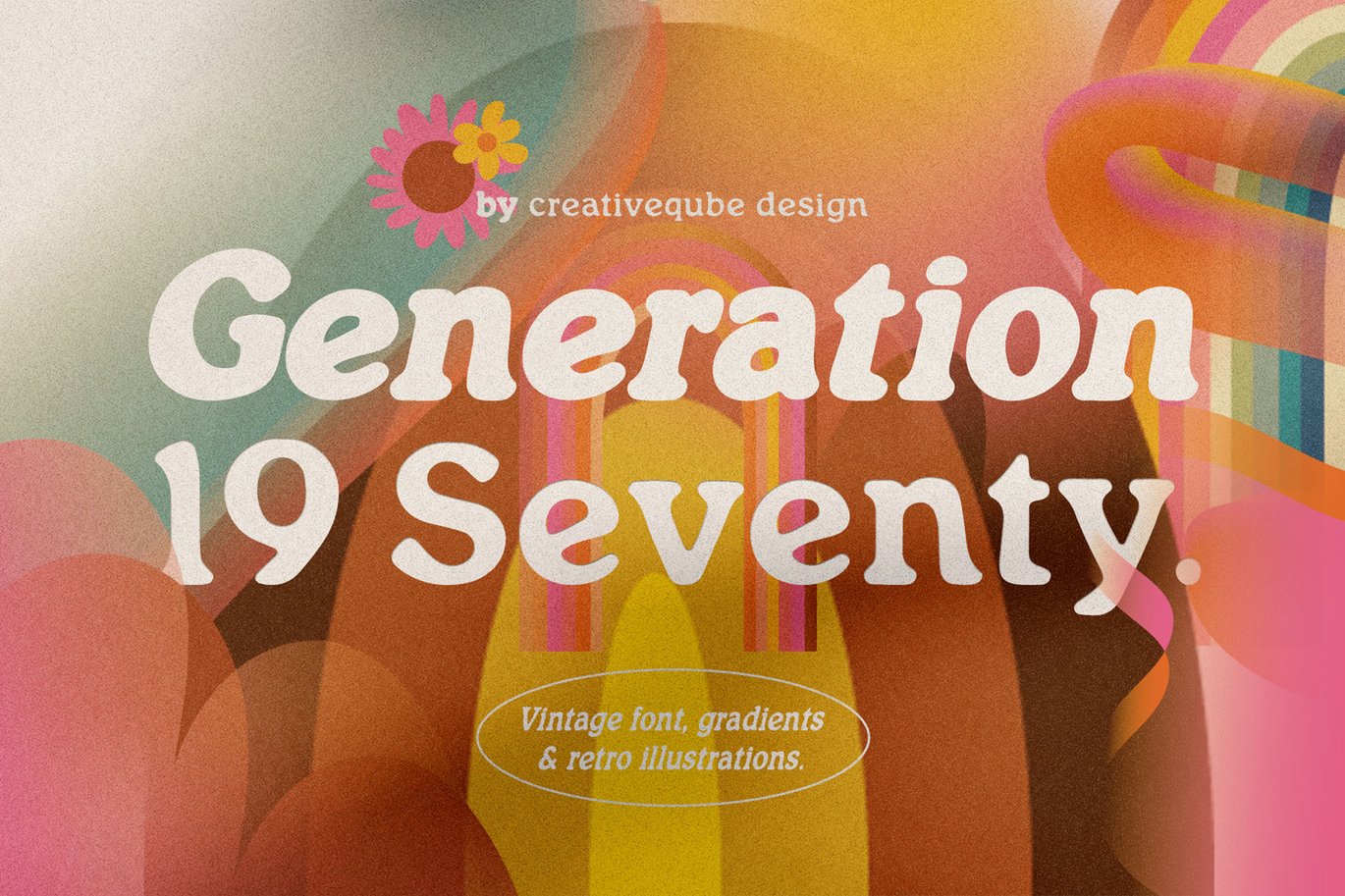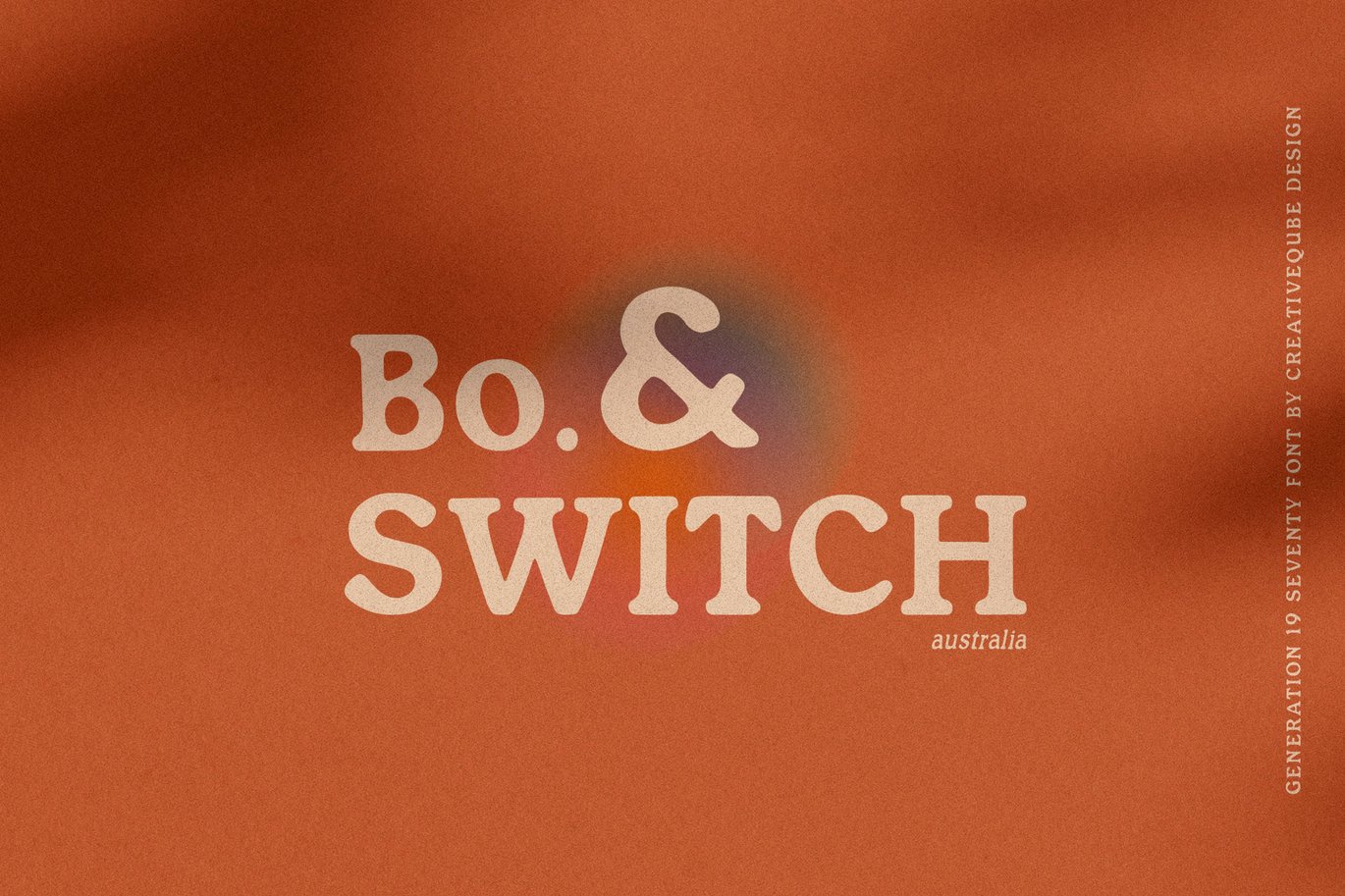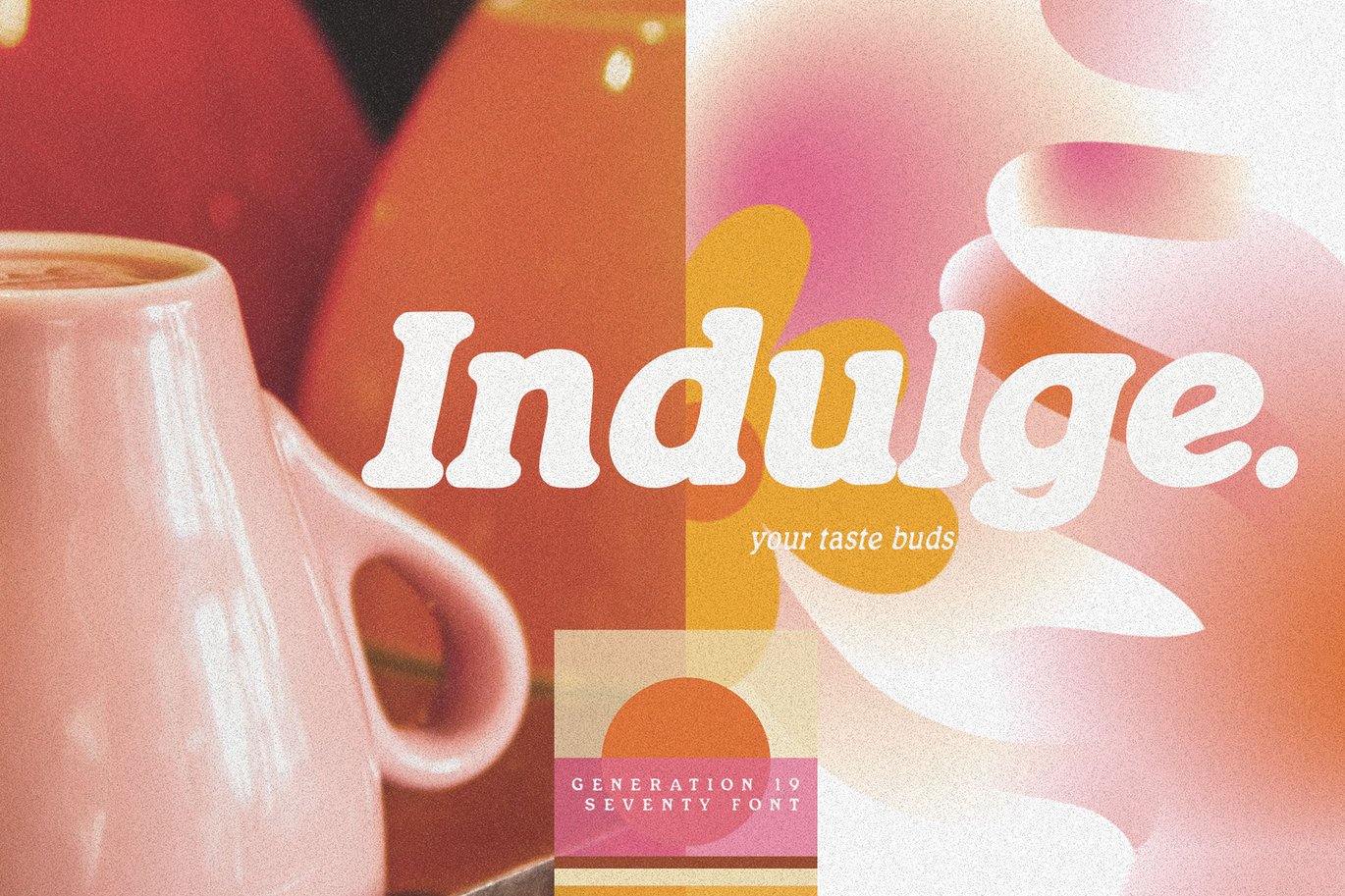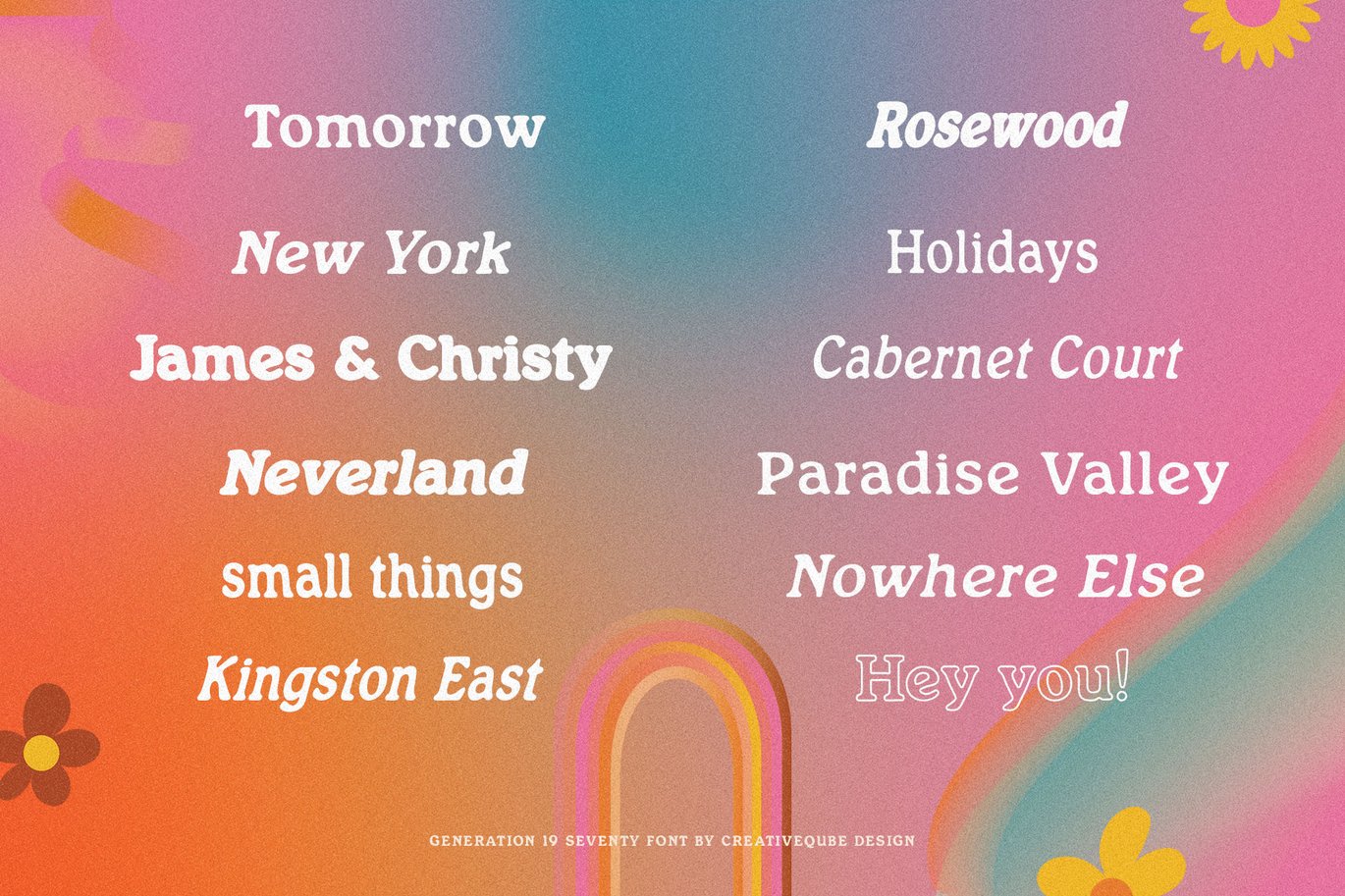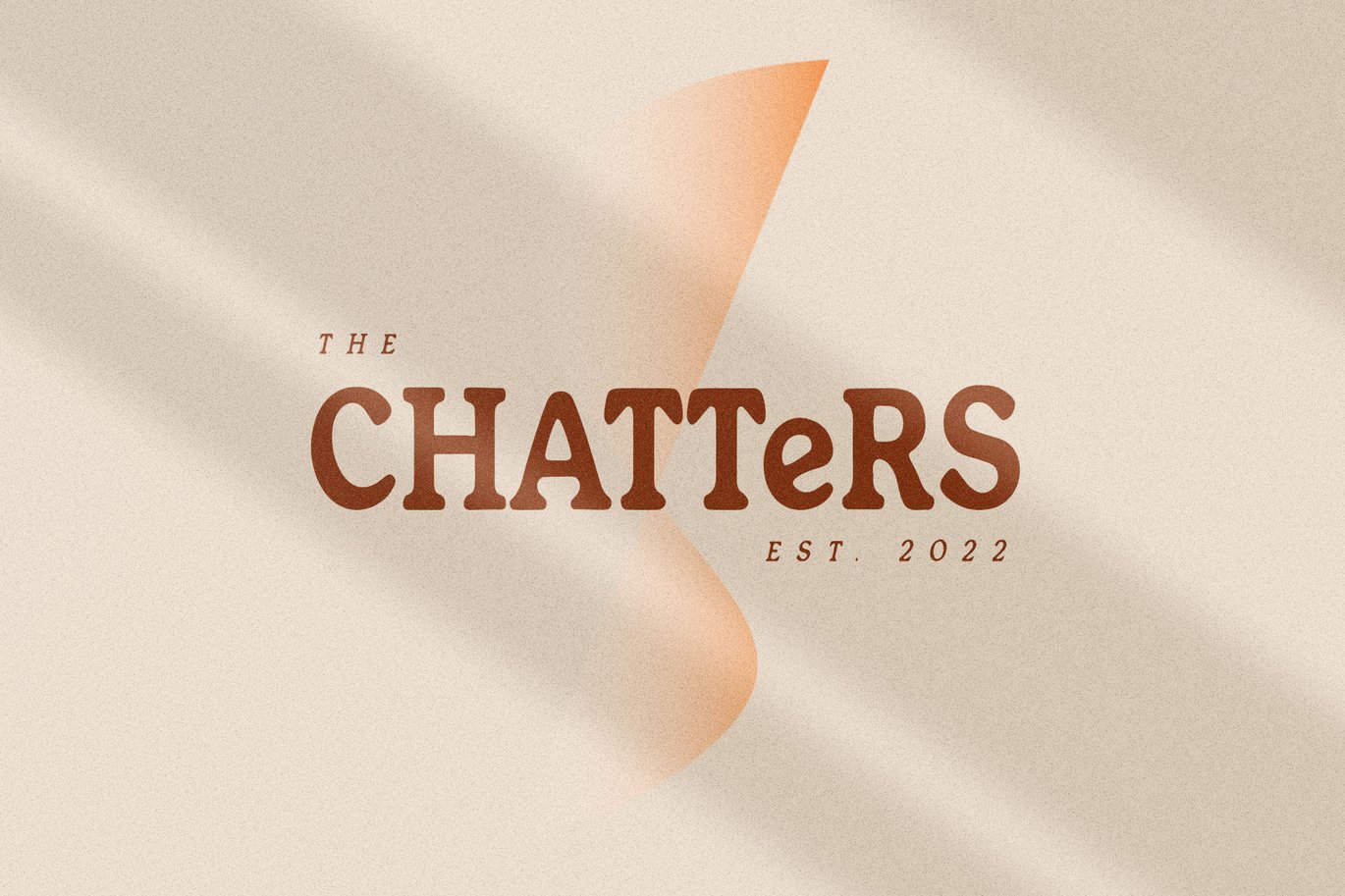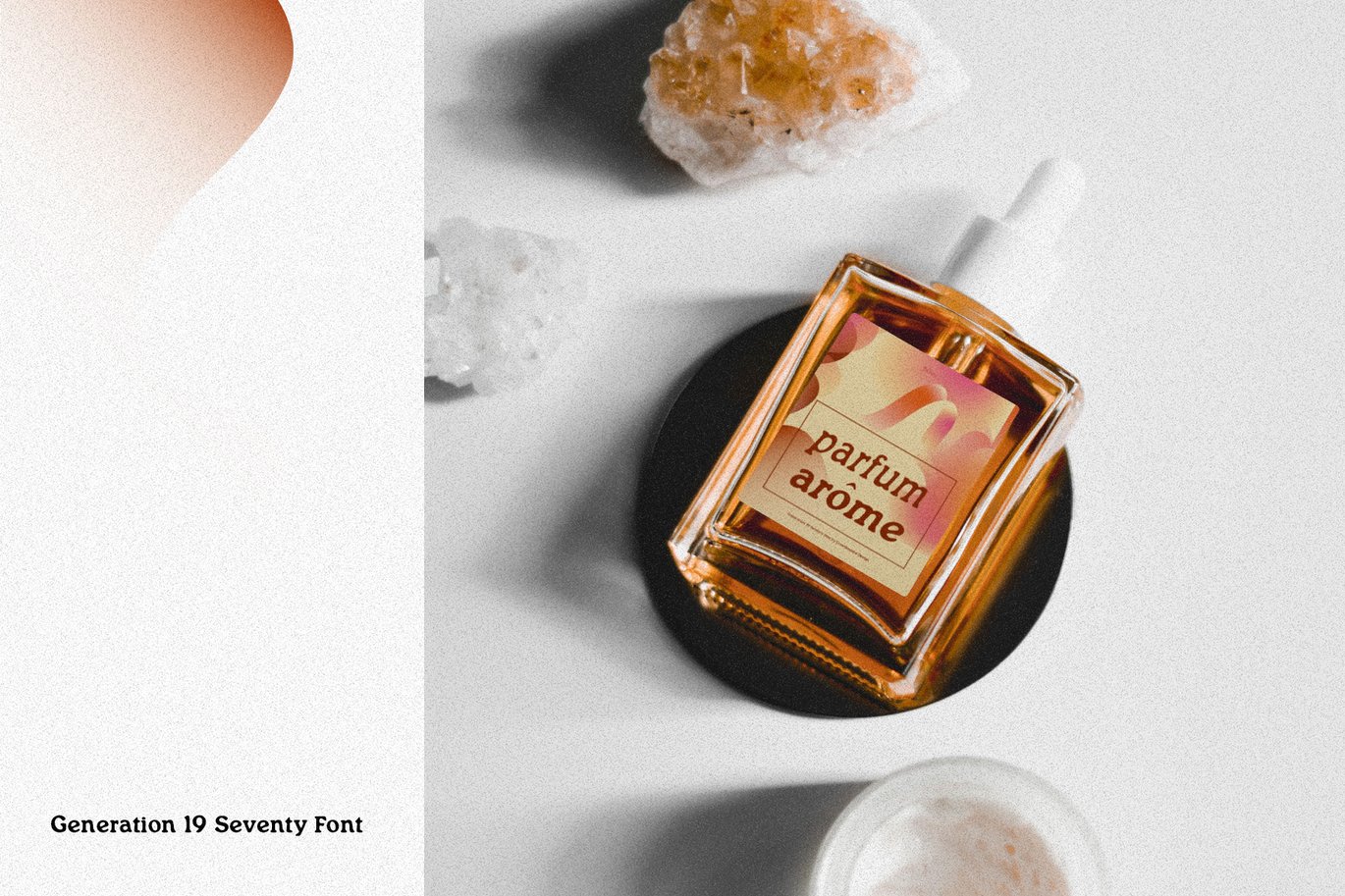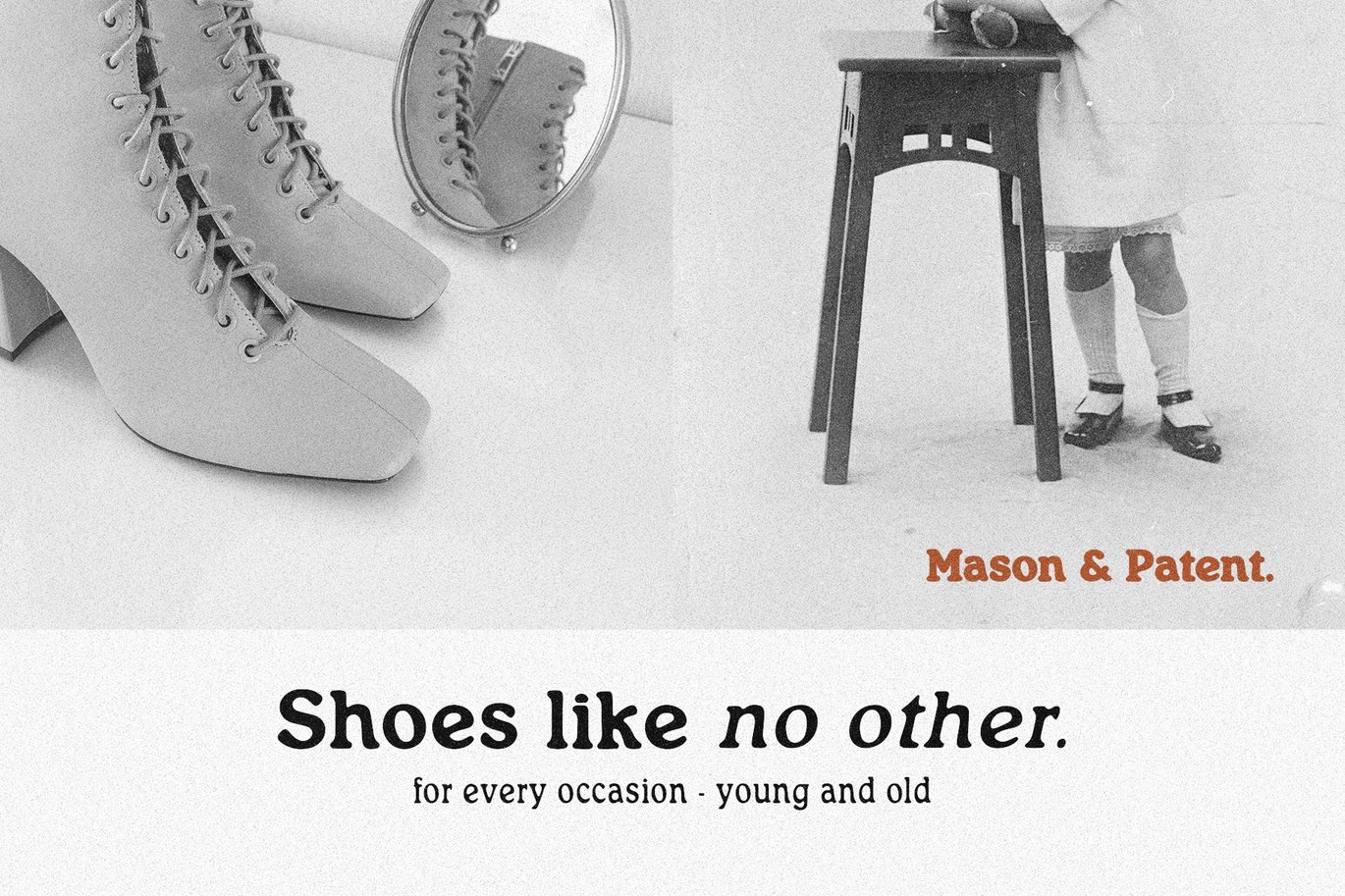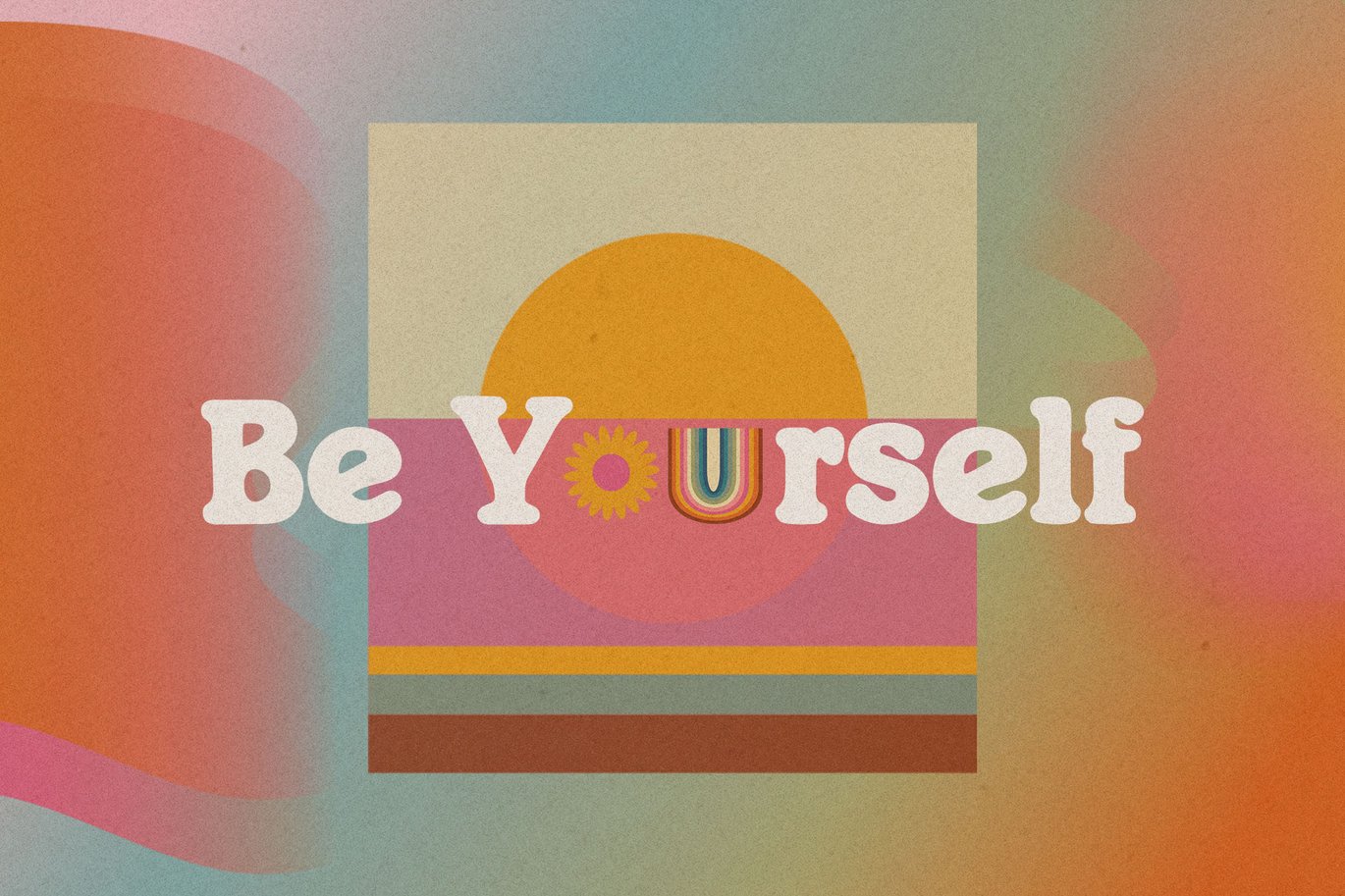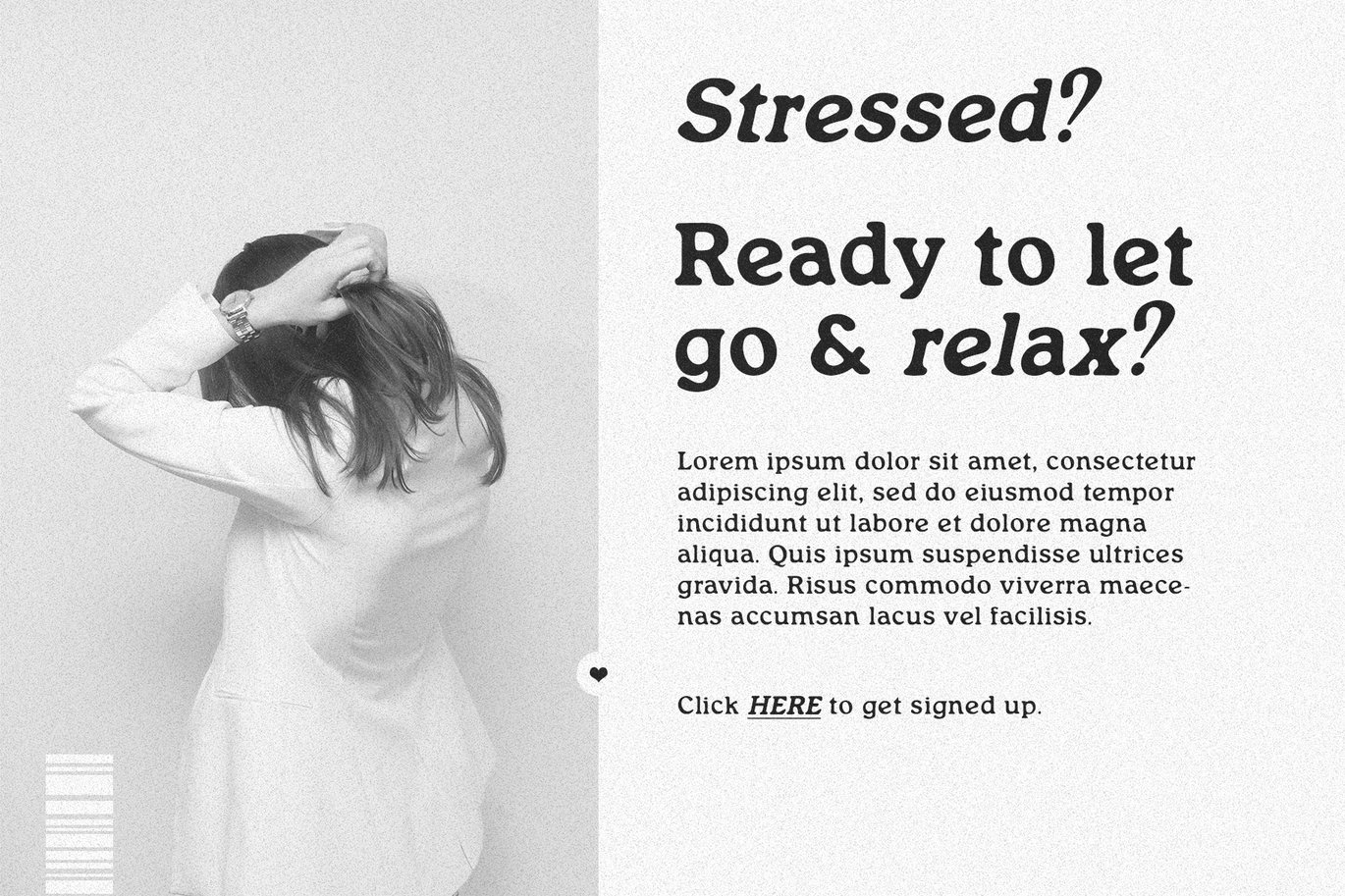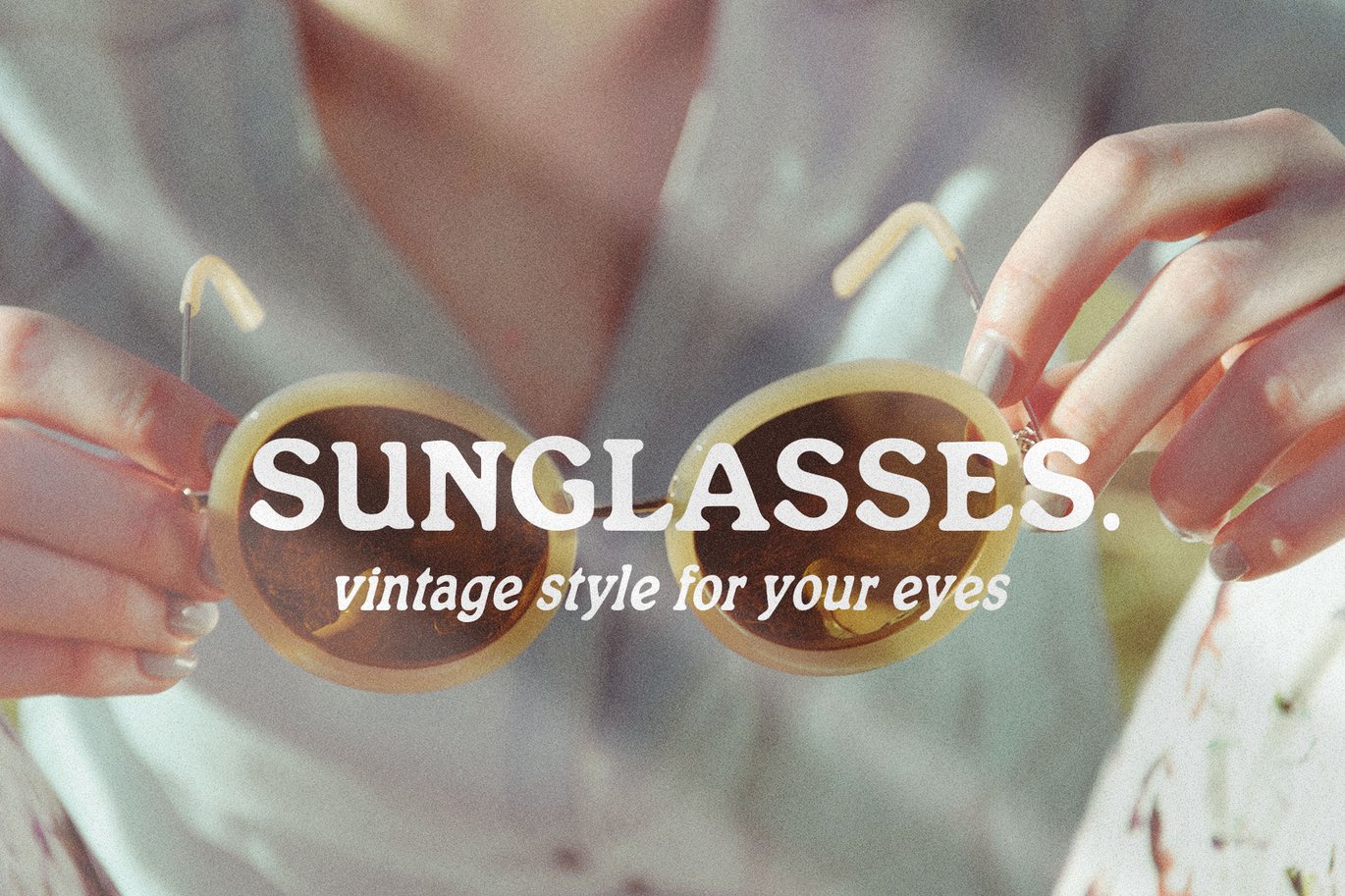
Generation 1970 Fonts
Generation 19 Seventy is a hip vintage serif font that makes for stunning logos, quotes, wedding invites, blog posts, Instagram, and more! Included is 12 different variations including italics, Bold, Condensed, Light, and more.
- Regular Serif
- Italics, Bold, Condensed, Light, Bold Italics, Condensed Light, Condensed Light Italic, Condensed Bold Italic, Light Italic, Outline.
- Numbers + Punctuation
- International language support